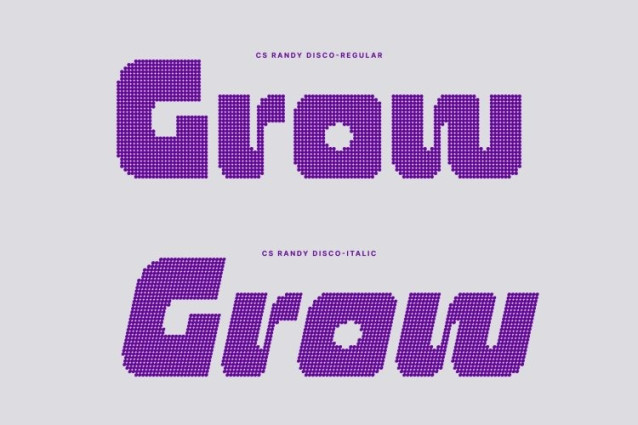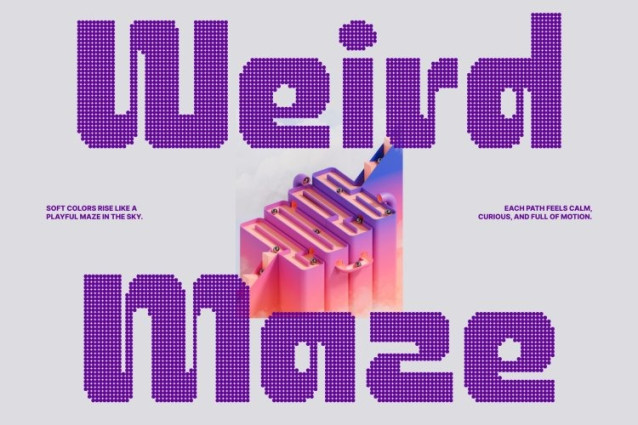
CS Randy Disco Font
CS Randy Disco Font This is a bold display font built from clean lines and strong geometric forms, infused with futuristic techno styling and Y2K disco culture. Inspired by digital nightlife, cyber aesthetics, and early-2000s club visuals, this font delivers a striking look that feels energetic, nostalgic, and unmistakably forward-looking.
Techno Geometry with Dance-Floor Rhythm
Defined by its precise techno structure, this font brings a sense of motion and rhythm to every character. The sharp construction and balanced proportions echo electronic beats, LED lights, and immersive club environments making the font feel powerful, dynamic, and visually charged.
Digital Glamour for High-Impact Visuals
Blending futuristic design with disco attitude, this font is perfect for visuals that demand attention. Its bold presence enhances sci-fi themes while also shining in party-driven concepts, creating a look that feels sleek, experimental, and full of digital glamour.
Perfect for Tech Events, Nightlife, and Futuristic Branding
This font is ideal for event posters, electronic music branding, Y2K-inspired visuals, gaming titles, club promotions, and digital campaigns. Its bold display style ensures maximum impact, bringing futuristic energy, techno confidence, and party-ready intensity to every design.